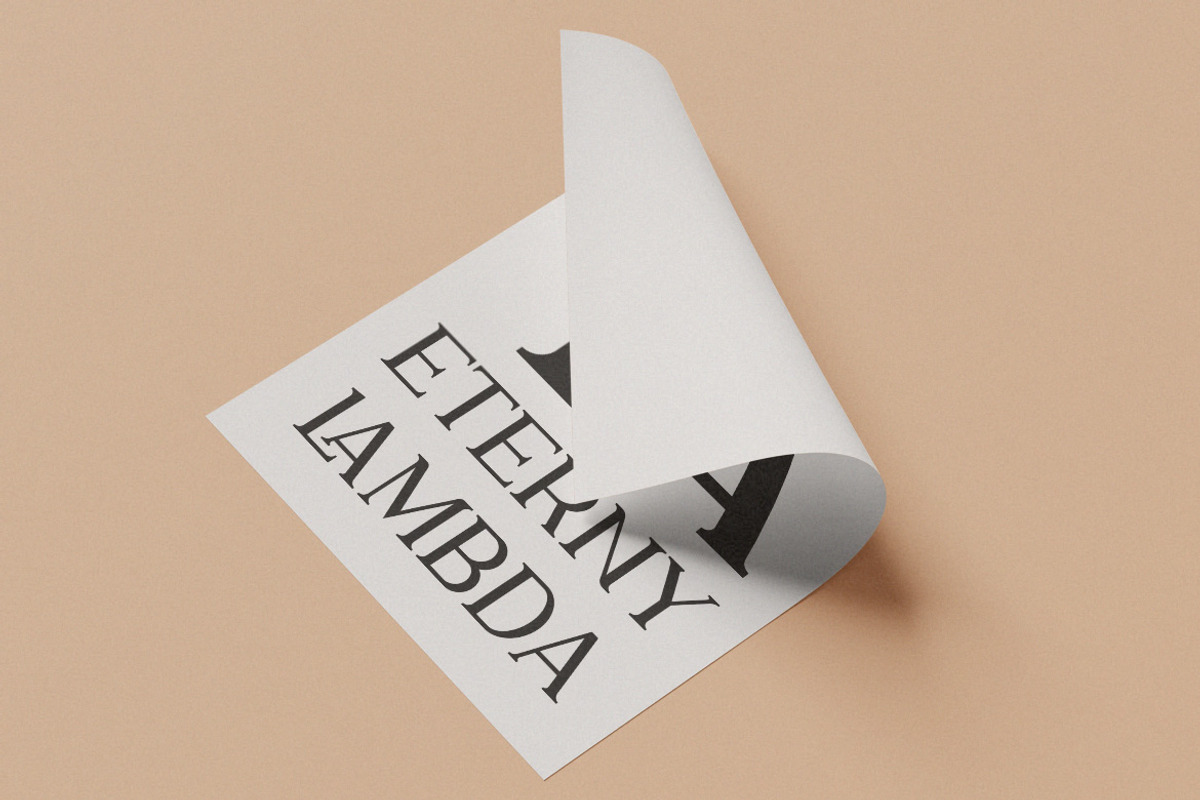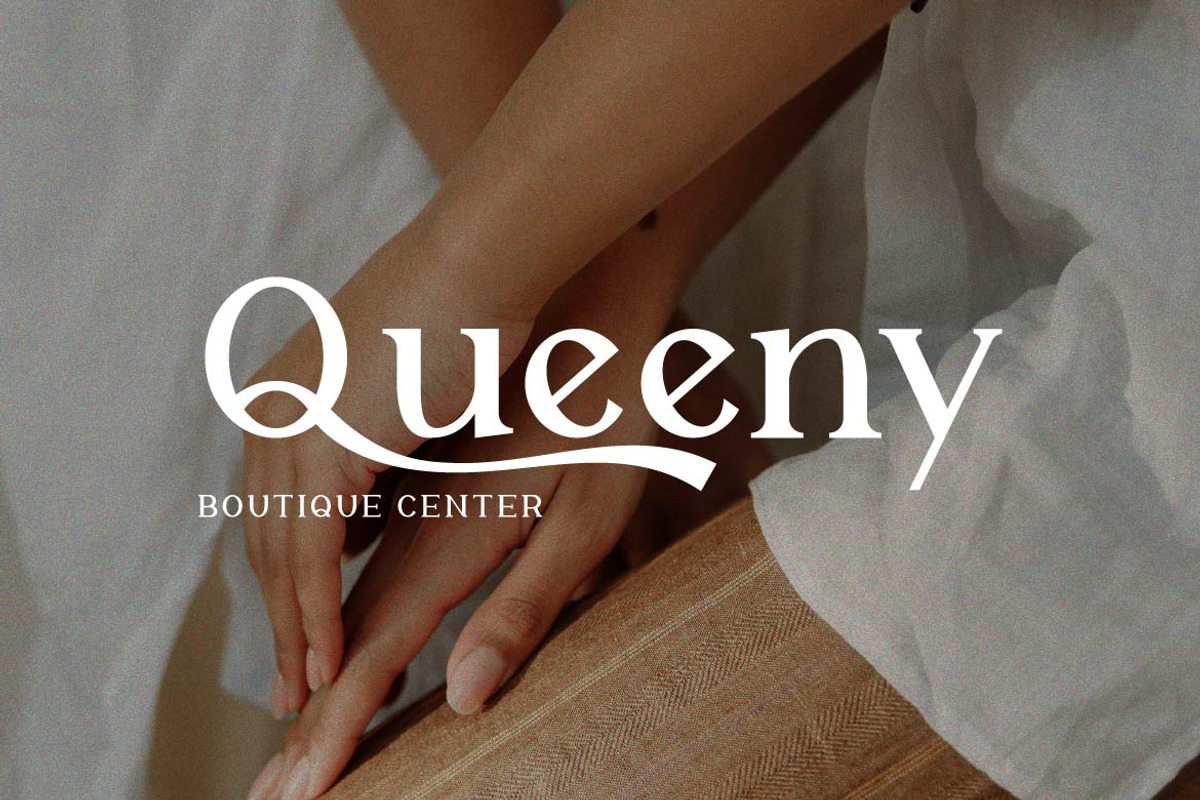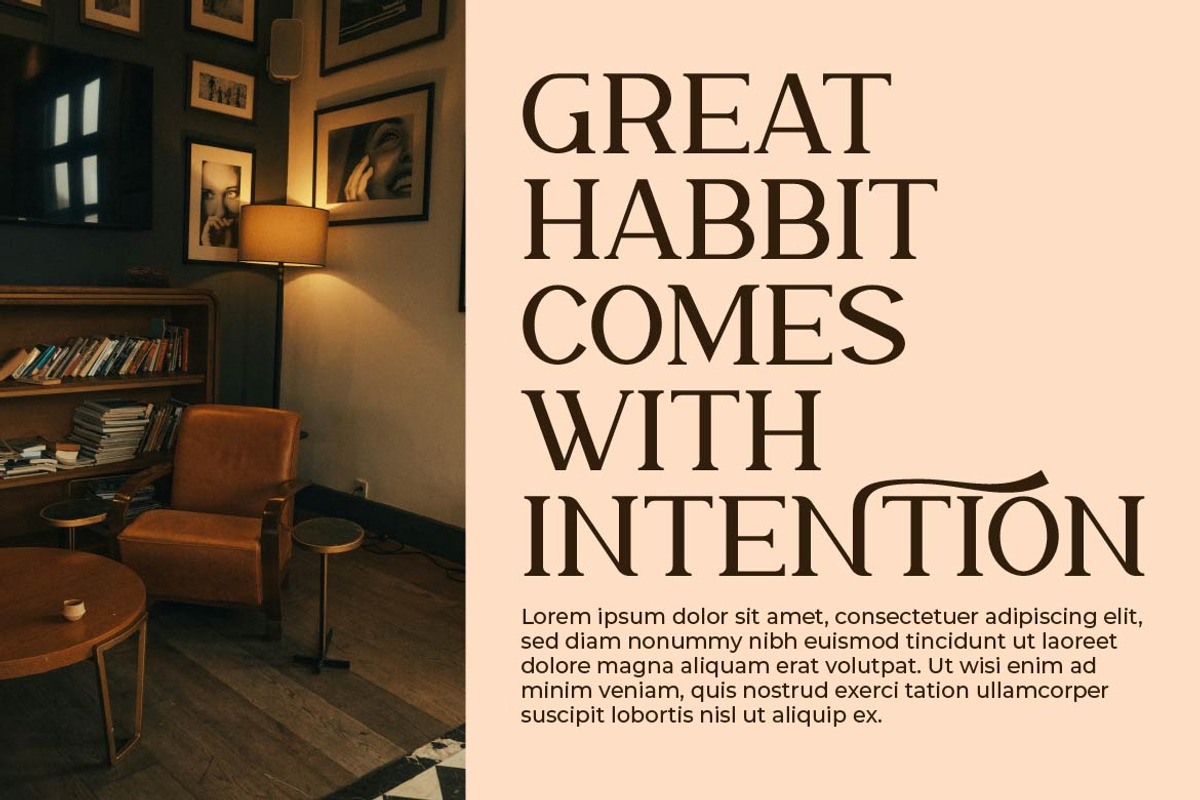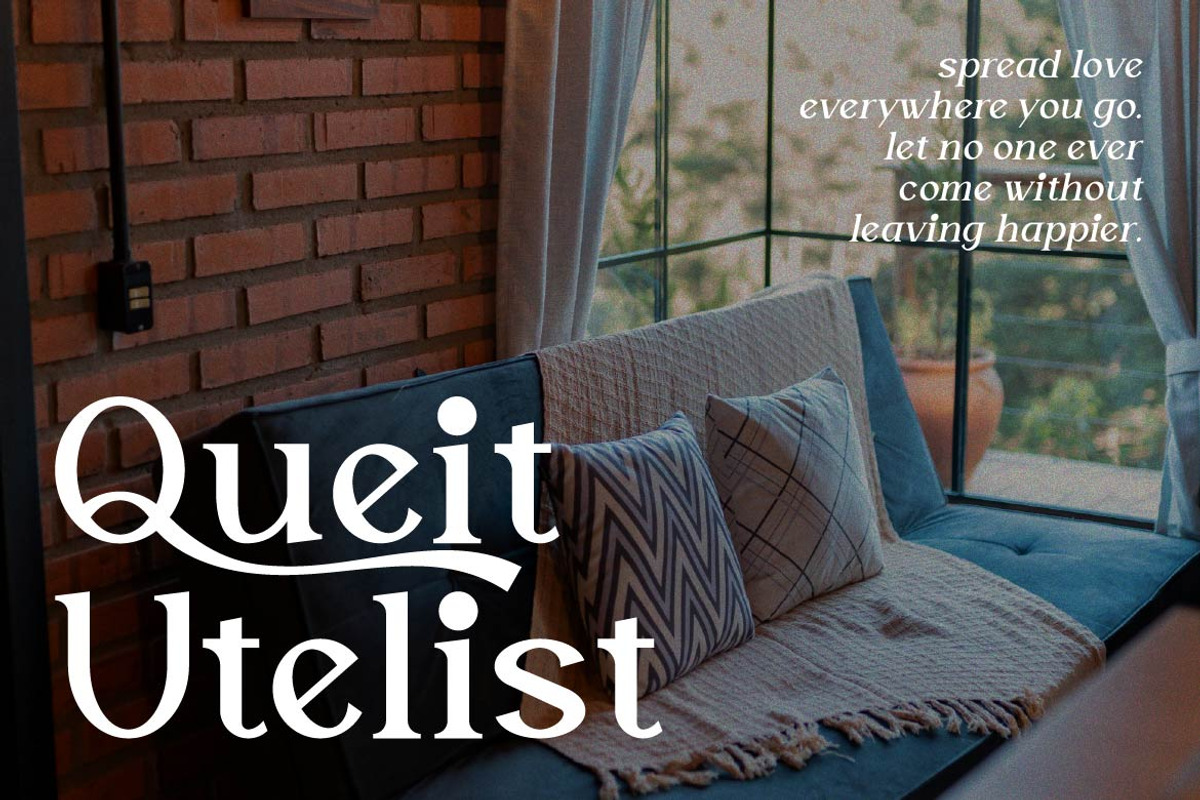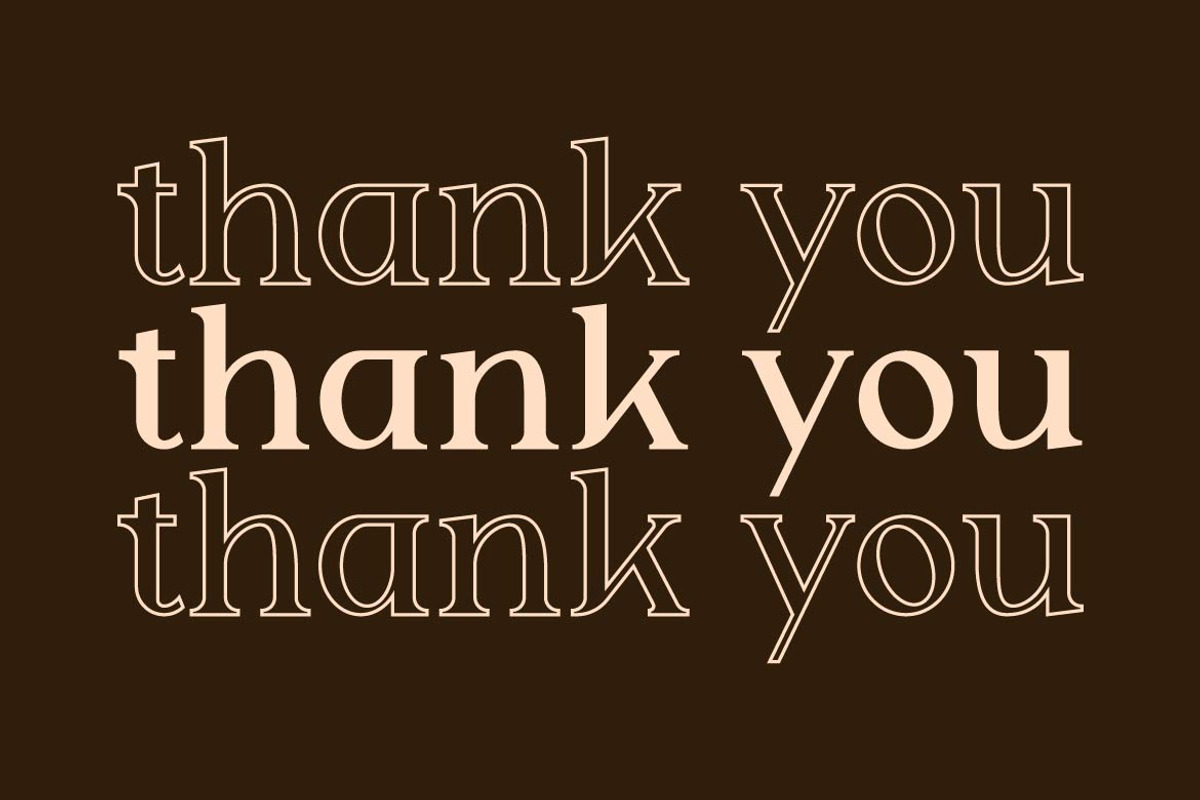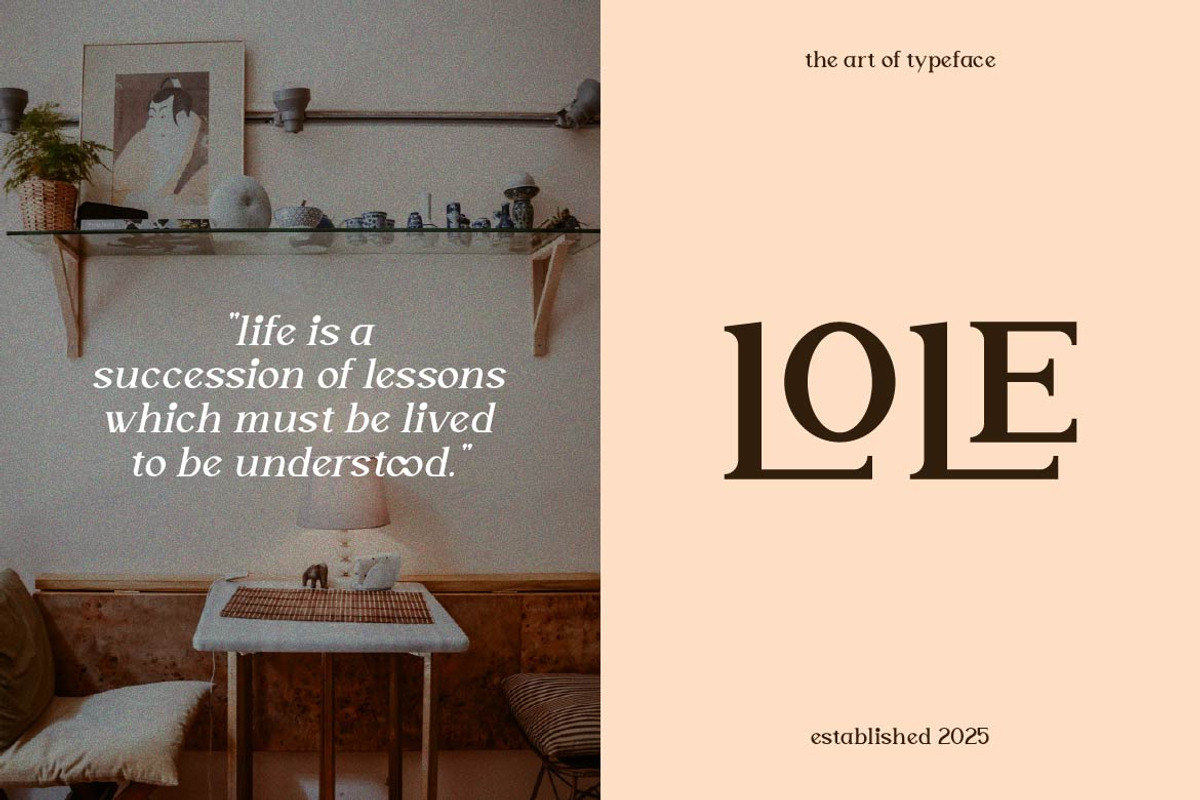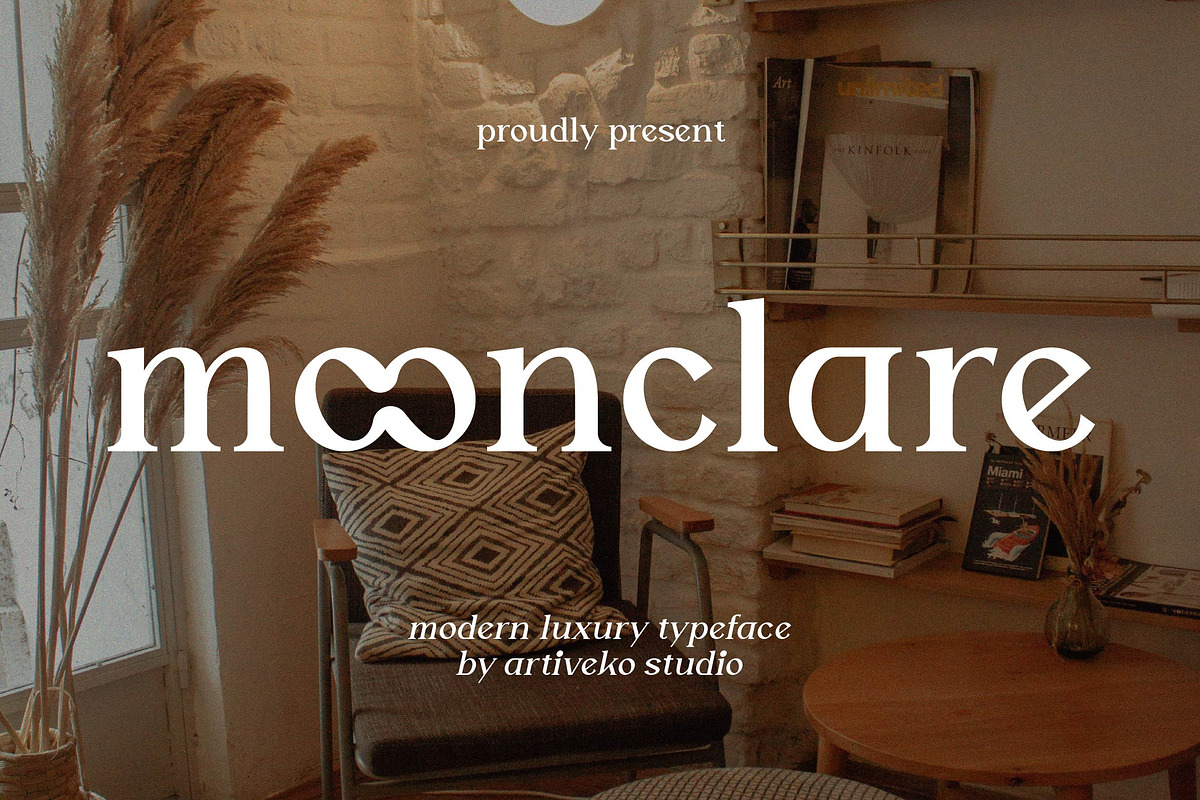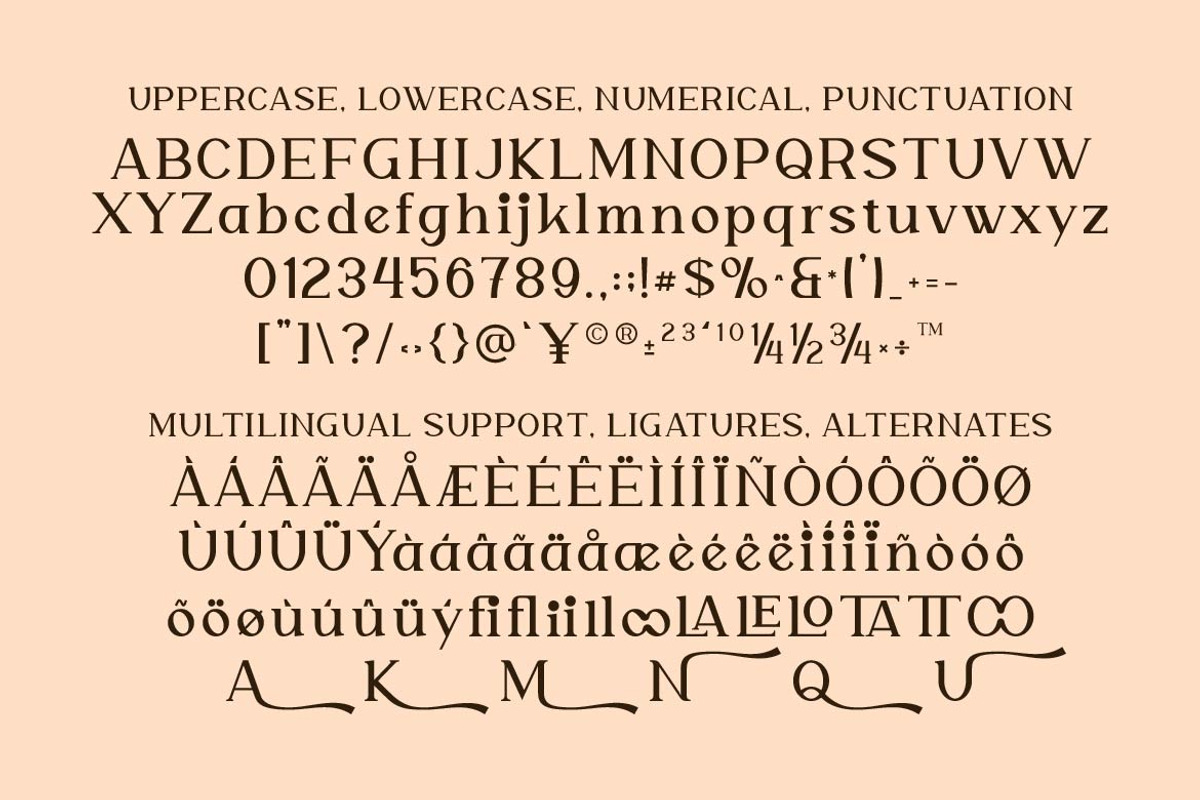
Moonsclare Feminine Type
Moonclare is a sophisticated serif font designed to embody elegance, refinement, and timeless beauty. With its high-contrast strokes, graceful curves, and sharp serifs, Moonclare delivers a luxurious and premium aesthetic perfect for high-end branding, fashion editorials, beauty packaging, and upscale logo design.